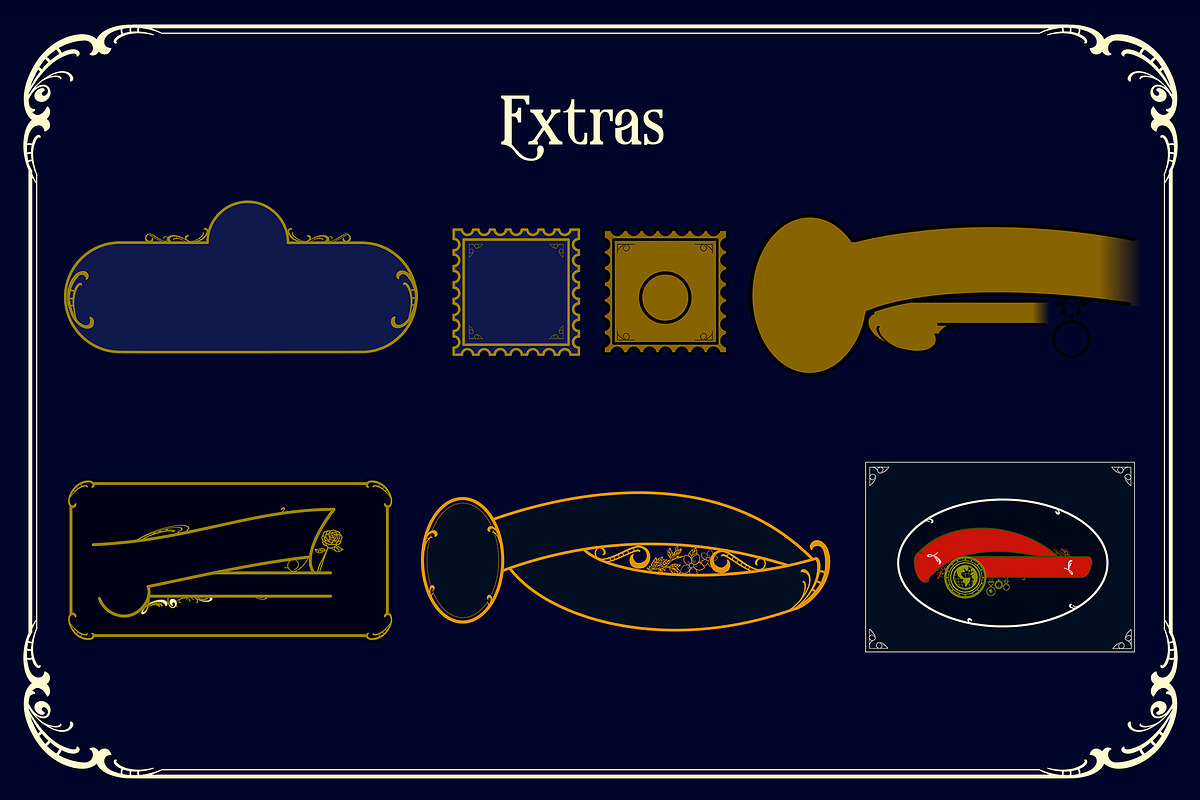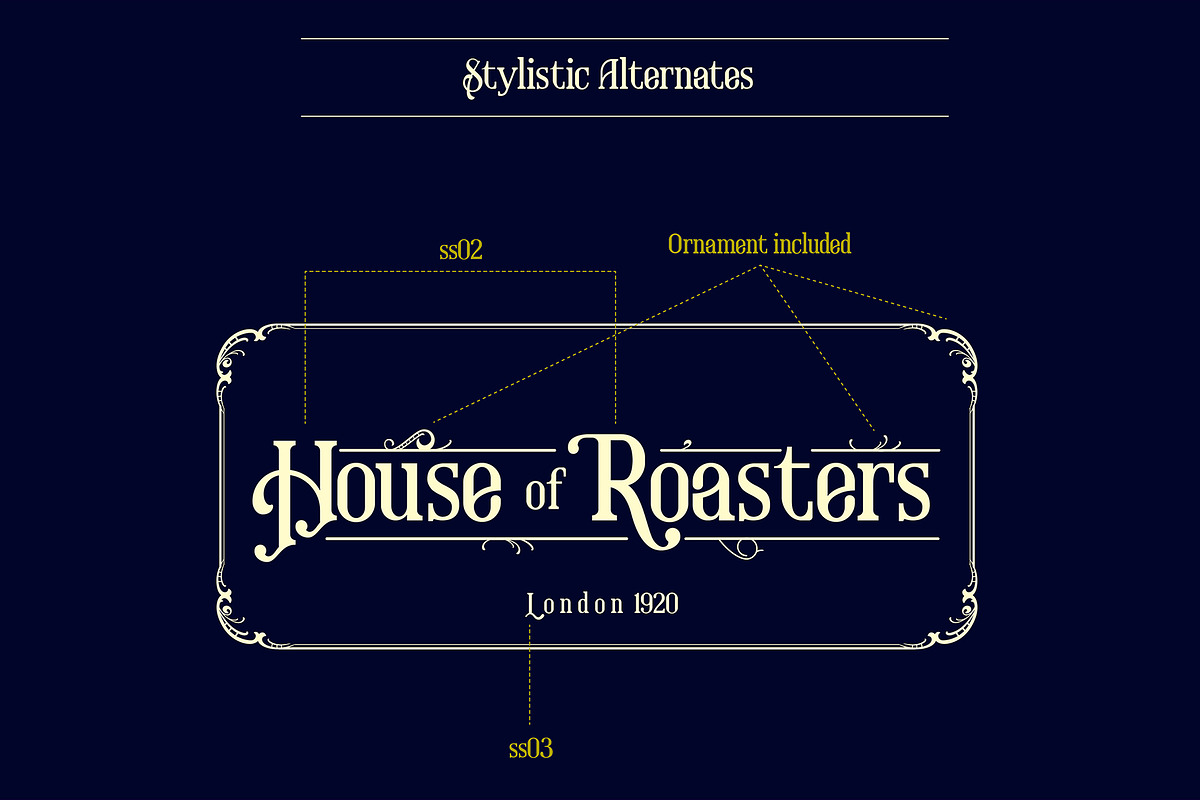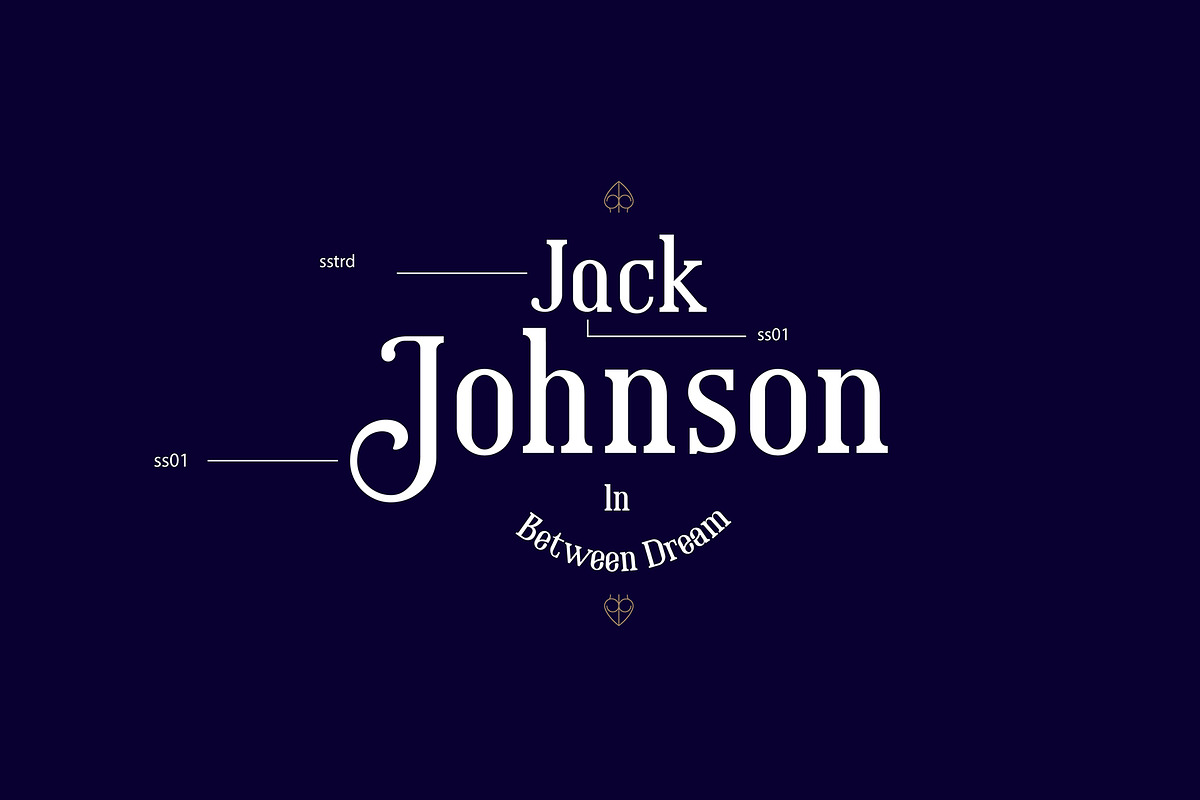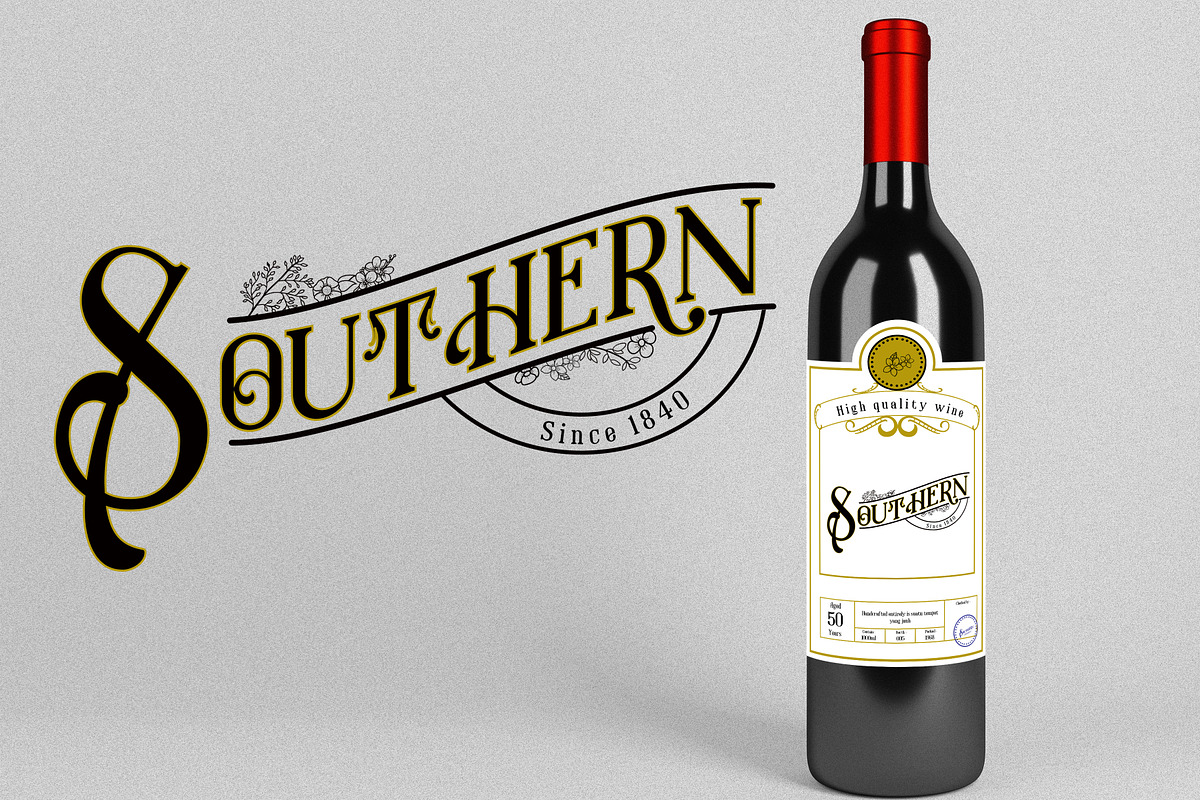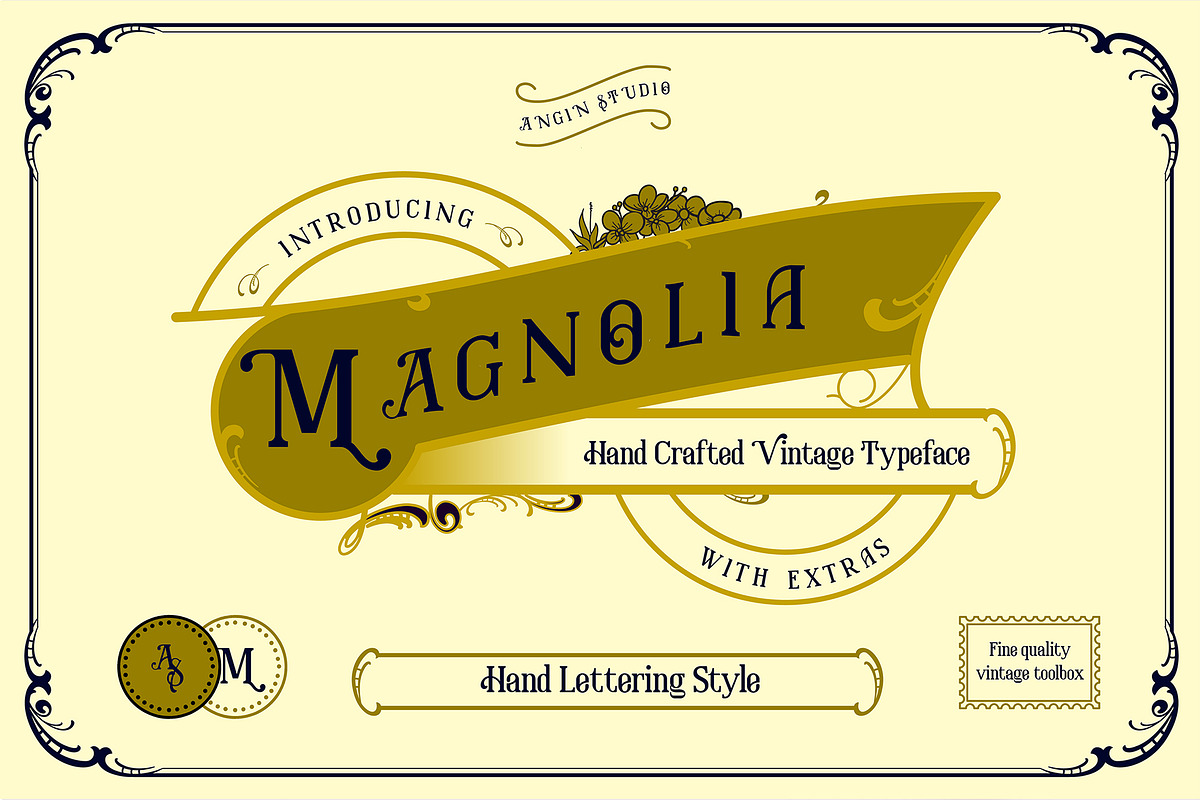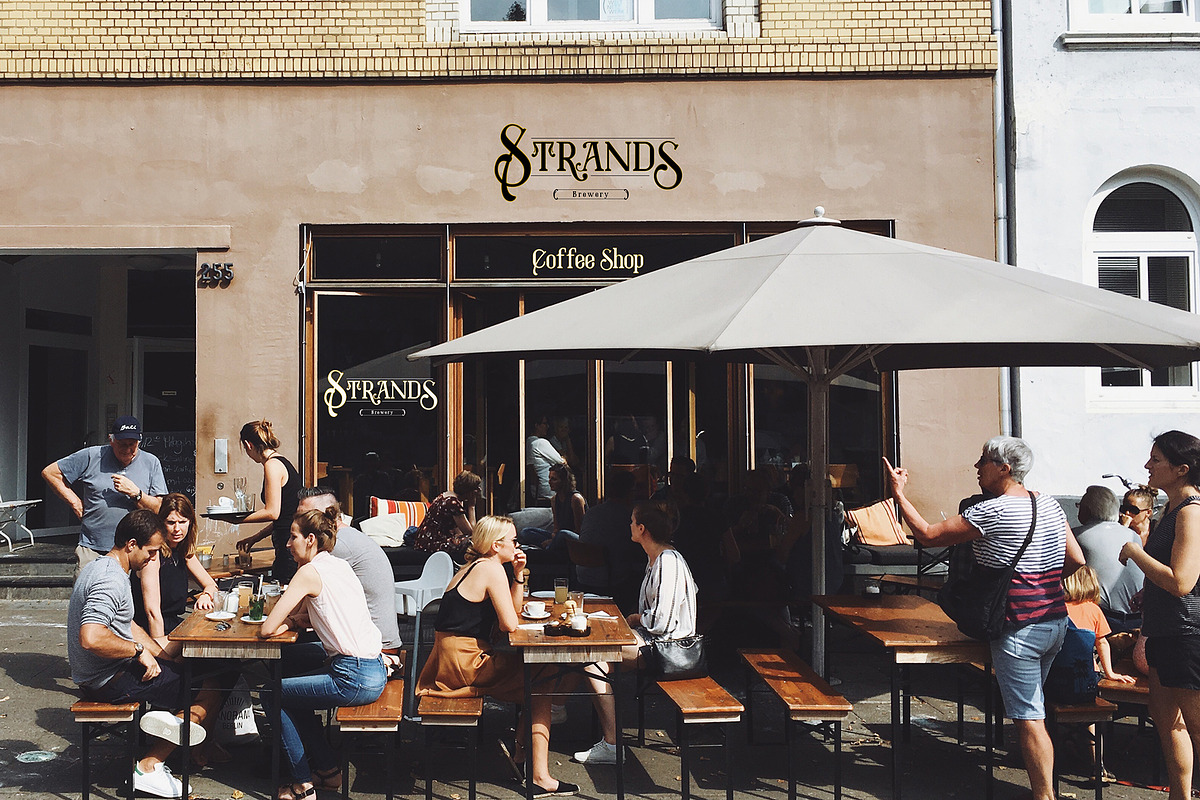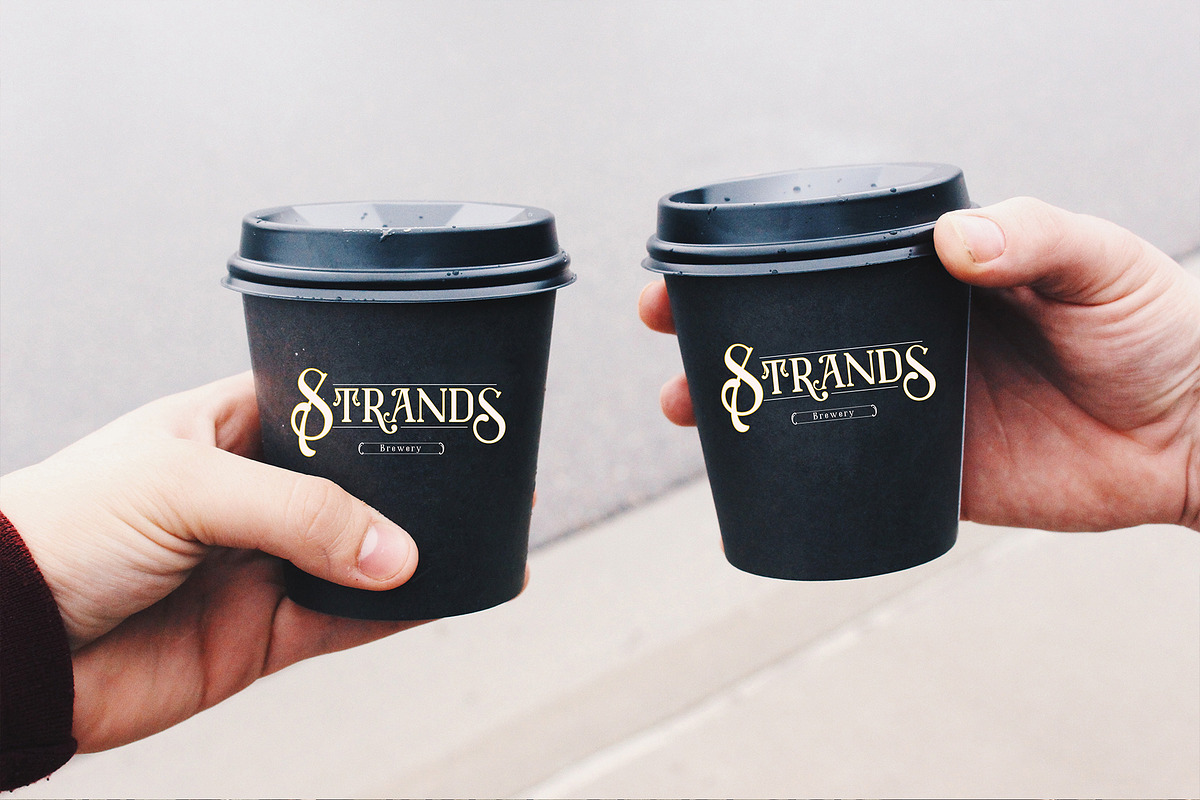
Magnolia Vintage Font
Magnolia is a vintage font inspired by vintage packaging,signage,ephemera and labels. magnolia has a decorative curve that carefully created.
Magnolia has an alternates for every uppercase so it will make your design not borring because you have more option to use. This font can be used for logo,labels,prints,t shirt design, etc just let your imagination become the only wall to stop it.
Magnolia comes with uppercase,lowercase,multingual,alternates (ss01,ss02,ss03), floral,illustration,fligree,ornament and frames. If design is cooking, well Magnolia is an ingridients that you can use for making many foods.